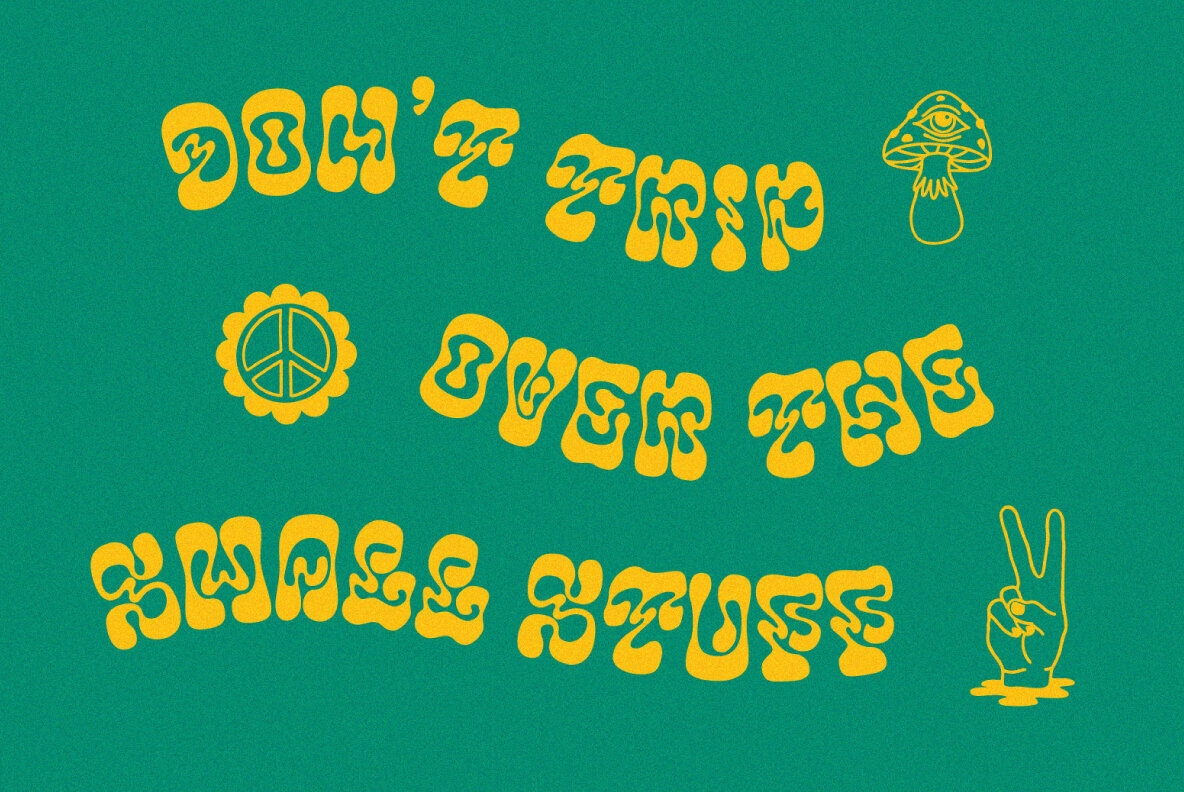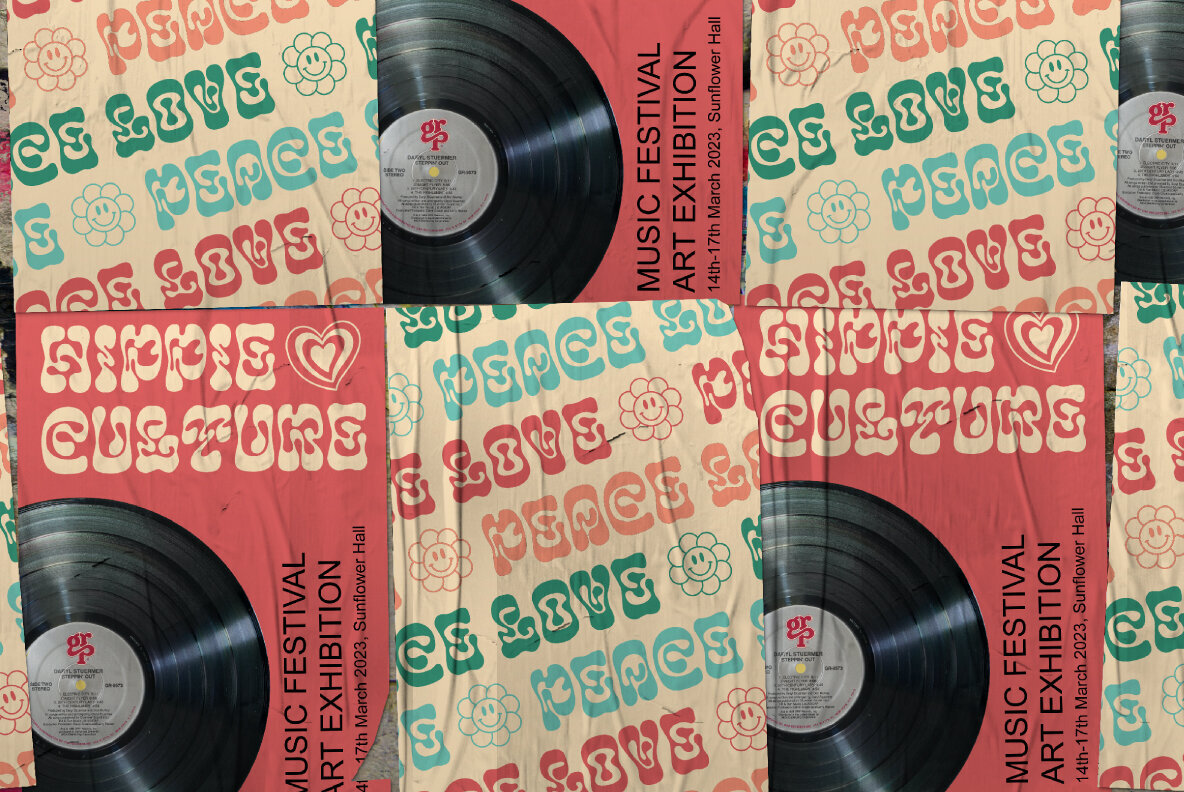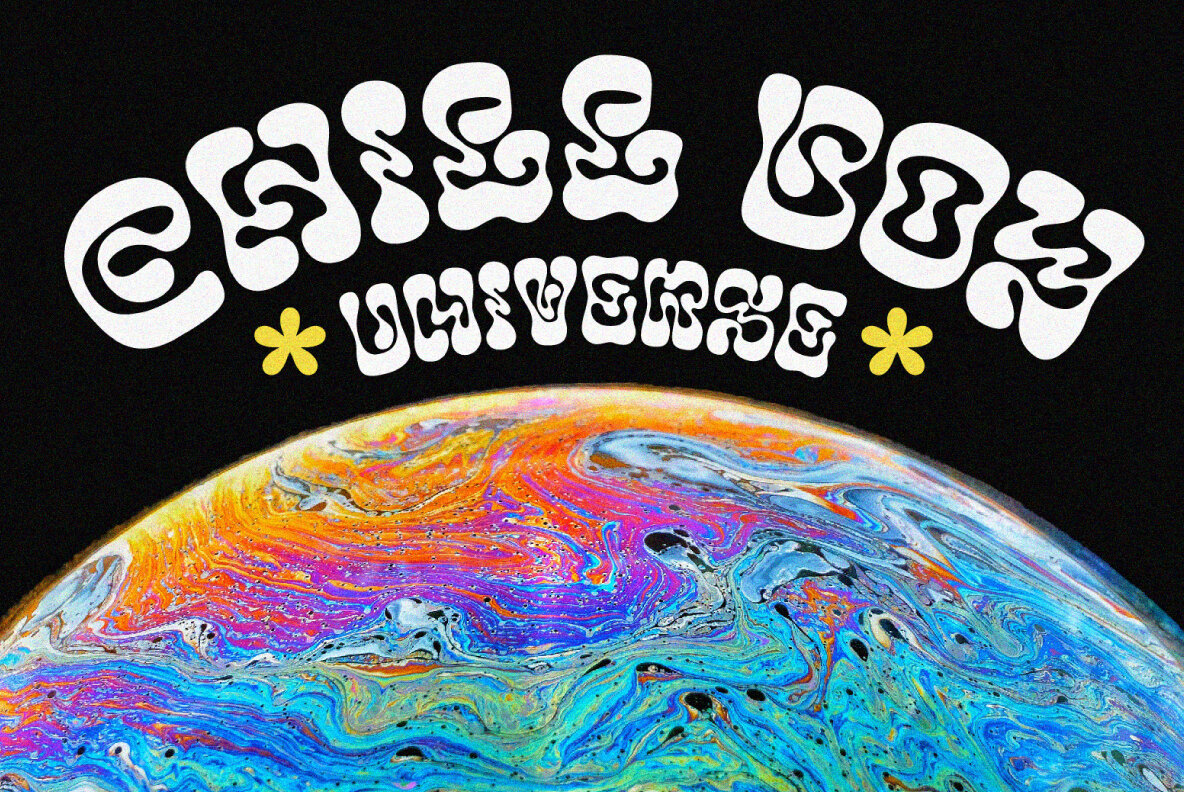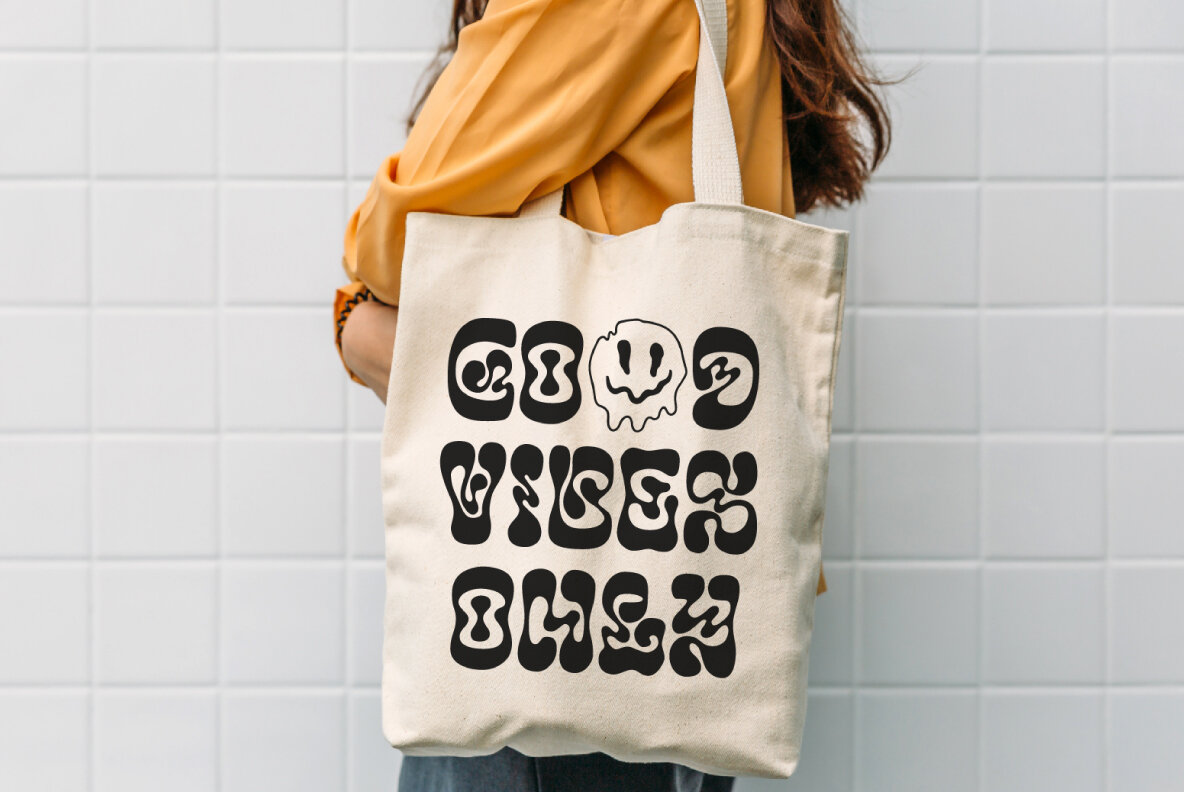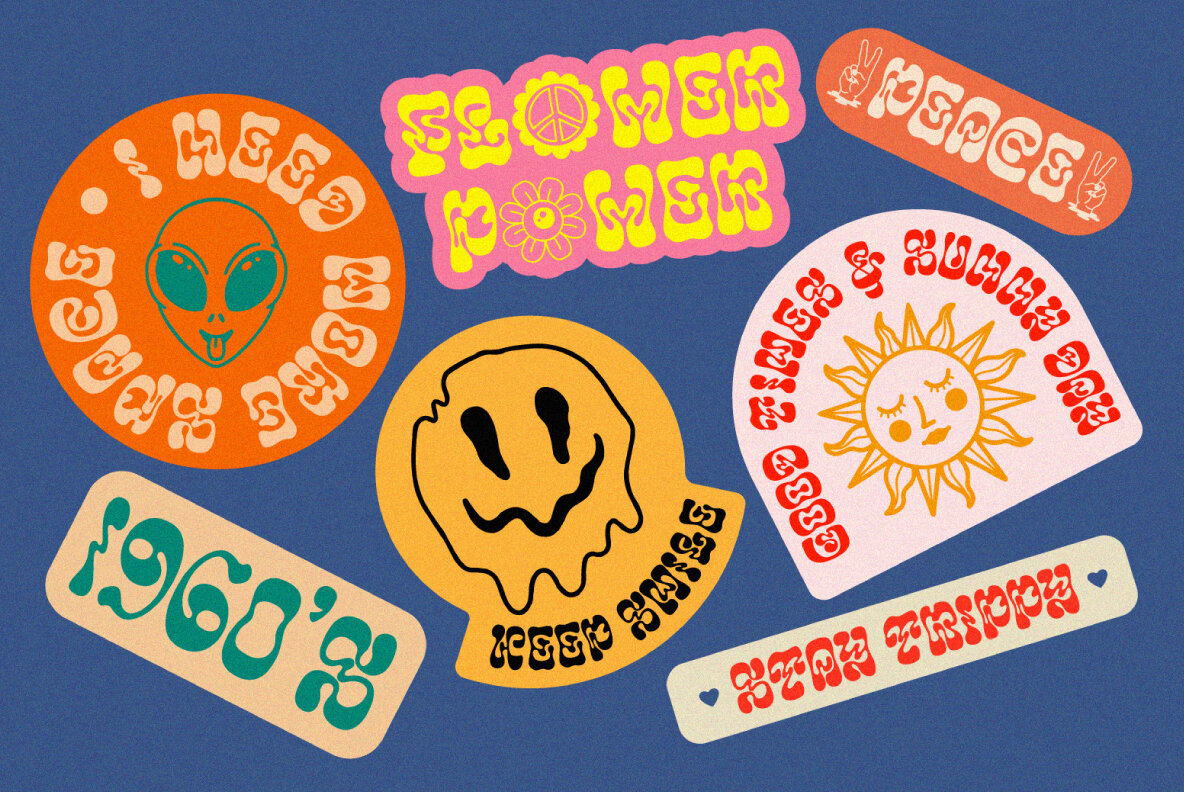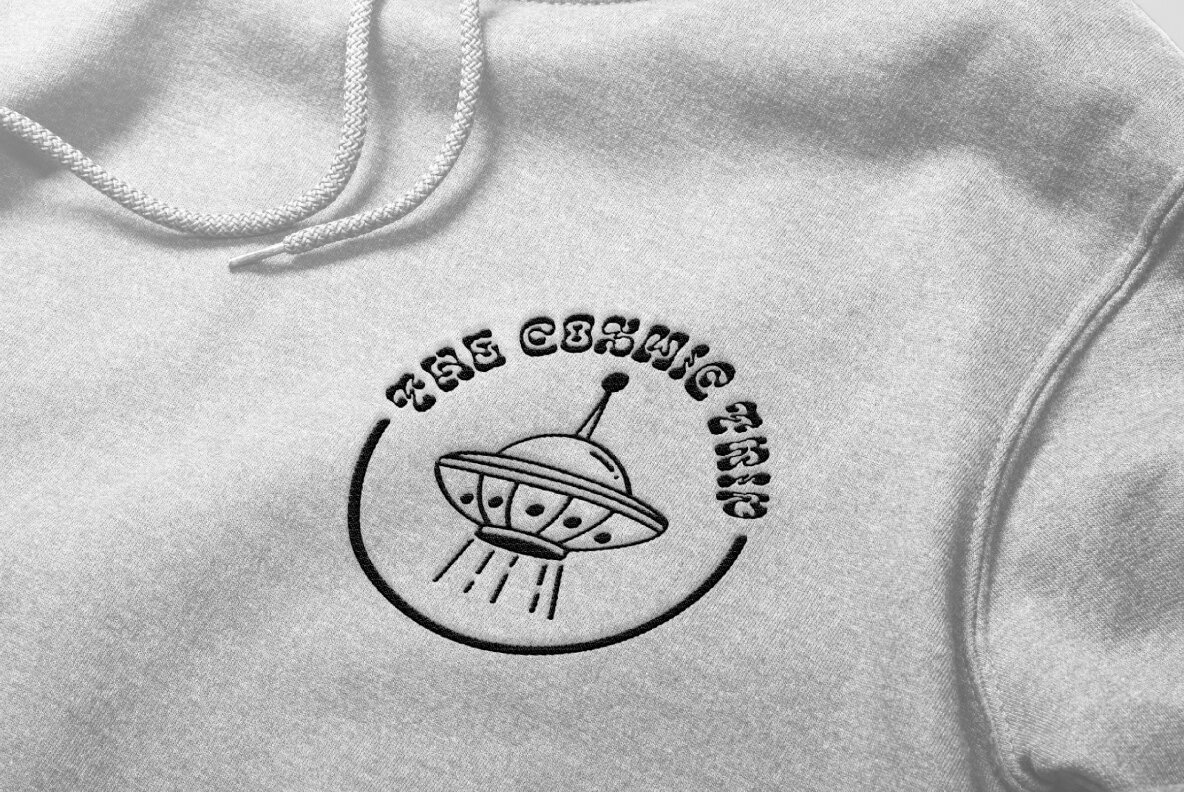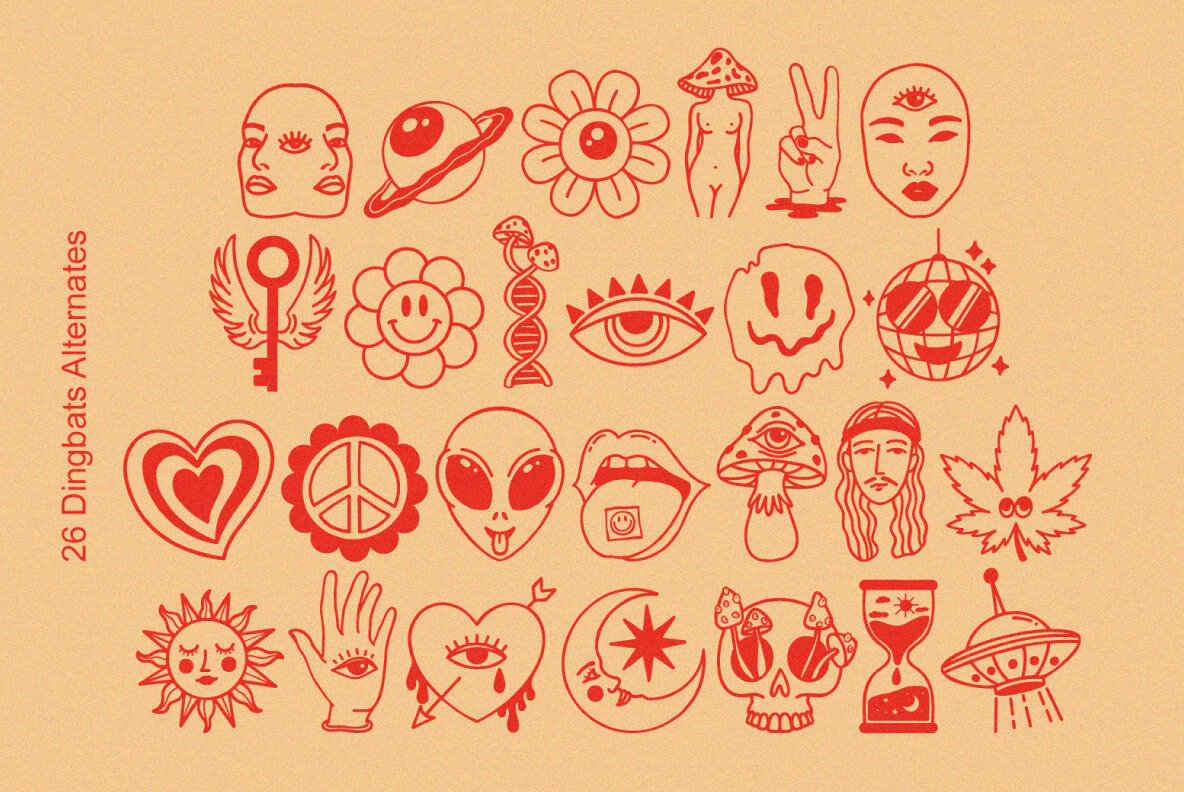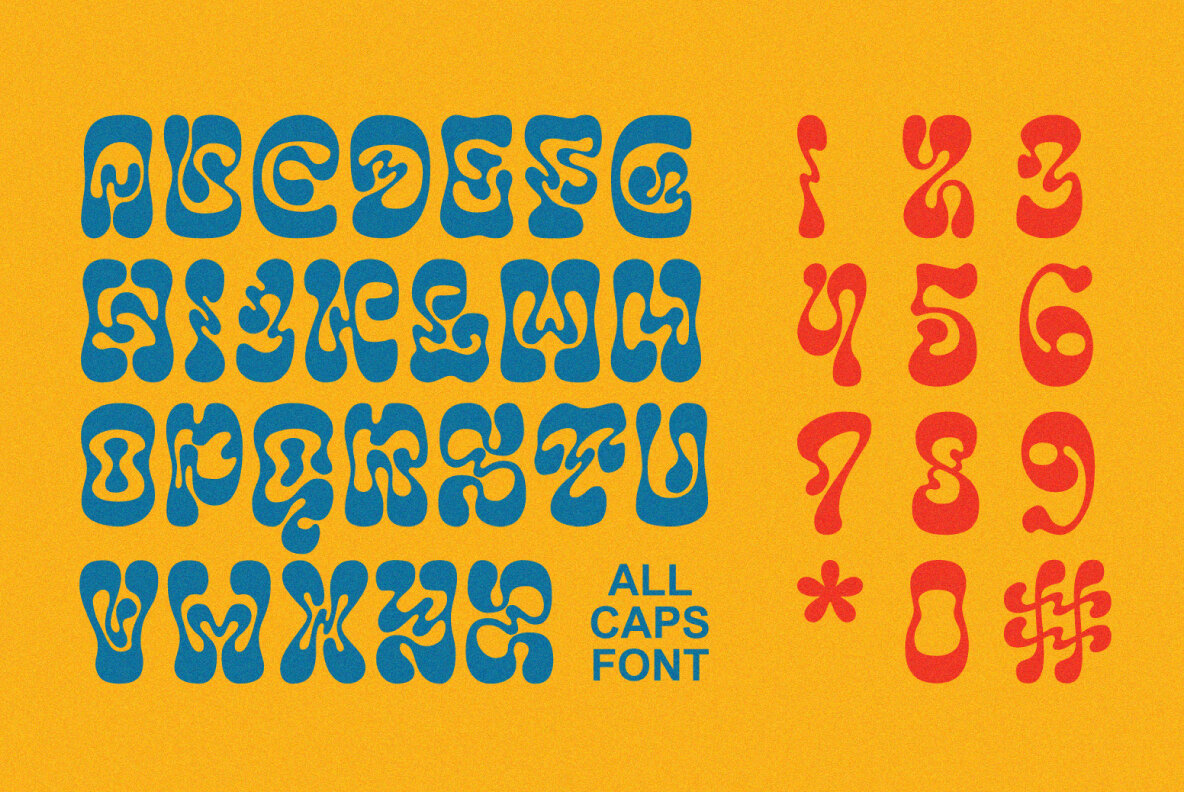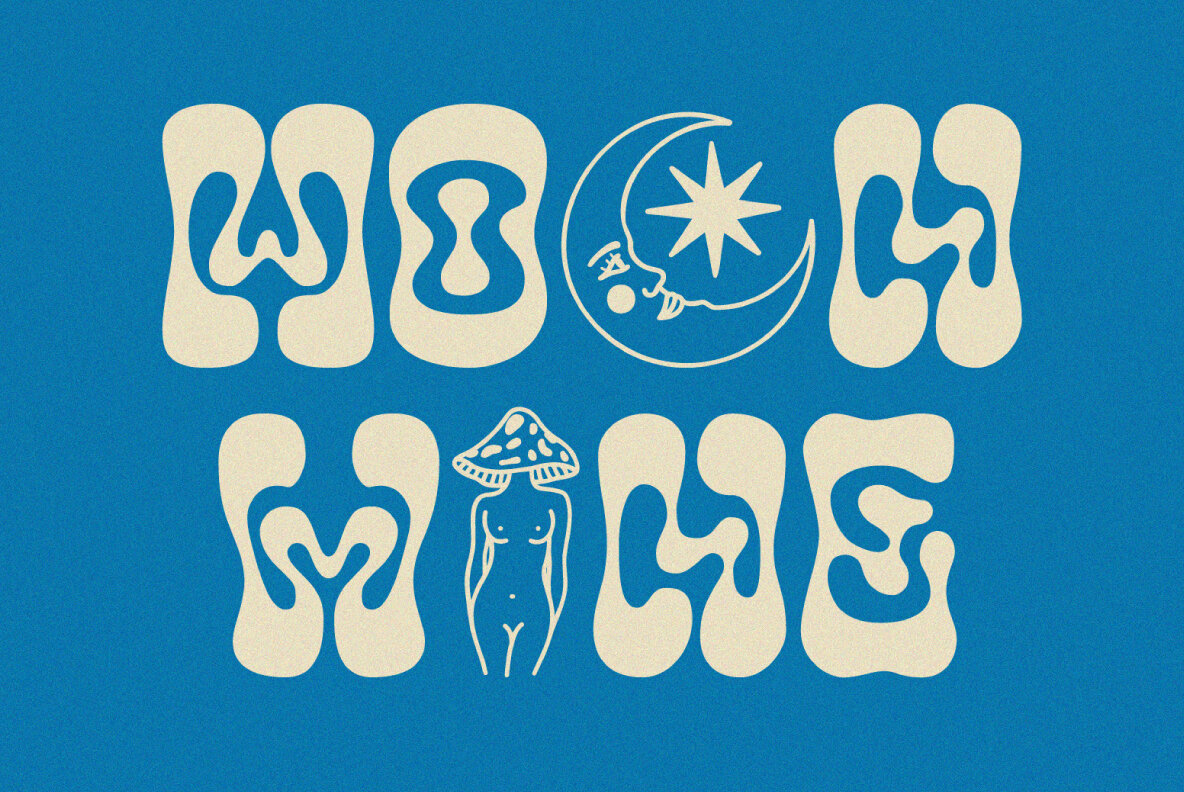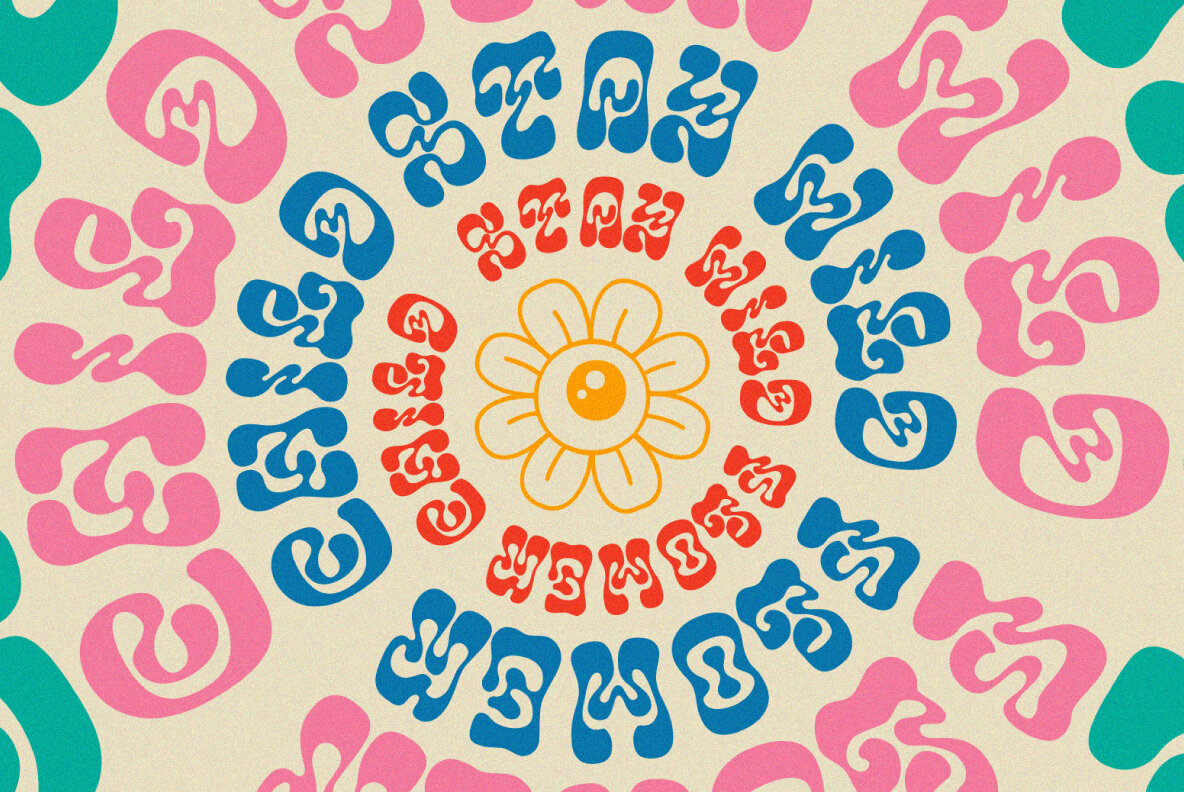
Smile Power Font
Smile Power Regular
Meet Smile Power, a dynamic typeface ideal for capturing the psychedelic essence in your designs. Whether you're creating headlines, logotypes, titles, or posters, this font is a perfect fit. It pairs beautifully with simple sans-serif fonts, adding a unique flair to any project.Smile Power: Bold Typographic Expression